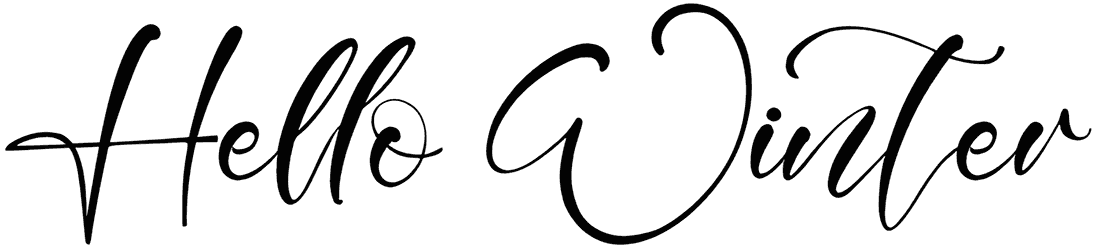
Hello Winter Font
If you’re looking to amaze others with a script or calligraphy font, Hello Winter is the way to go. Although it is unreadable and doesn’t cover full capital letters, the beautiful curves of this font could add a nice touch to your digital projects.